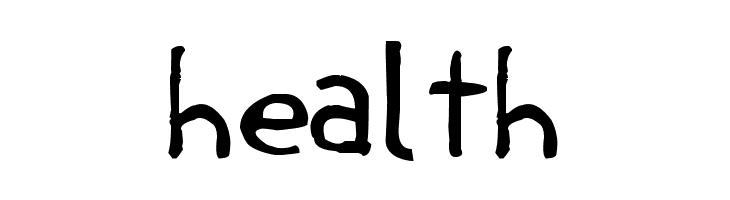
JEMBOhand Font
Font by Michele Vannucchi MKT
A playful, handwritten font with an informal and organic style.
PENNARELO Font
Font by Michele Vannucchi MKT
A bold, playful, hand-drawn style with rounded edges.
Just Another Courier Font
Font by Michele Vannucchi MKT
A playful, bold outline font with rounded edges and uniform strokes.
MY_EYES_ARE_TWICE_SM Font
Font by Michele Vannucchi MKT
A playful, hand-drawn font with bold, irregular shapes and a casual style.